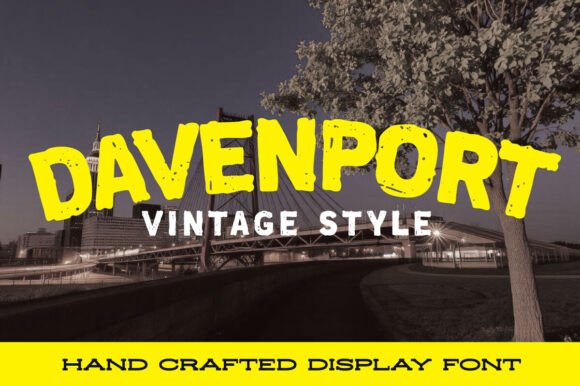
Davenport Font: A Bold, Vintage-Style Sans-Serif for Timeless Designs
The Davenport font is a striking, bold sans-serif typeface that embodies the essence of vintage charm. With its rugged, distressed texture and strong, blocky letterforms, Davenport exudes a commanding presence that instantly captures attention. This font is perfect for designers seeking to add a touch of nostalgia and authenticity to their branding, posters, and retro-inspired designs.
The Characteristics of Davenport Font
Davenport is a sans-serif font, meaning it doesn’t have the small lines or flourishes at the ends of the letters, giving it a clean and modern look. However, what sets Davenport apart is its bold, vintage-style aesthetic, which is achieved through its rugged, distressed texture. This texture gives the font a worn, weathered appearance, as if it’s been worn by time and use.
Key Features of Davenport Font:
- Bold and commanding presence: Davenport’s strong, blocky letterforms make it perfect for headlines, titles, and emphasis.
- Rugged, distressed texture: The font’s weathered details add authenticity and a touch of nostalgia.
- Timeless style: Davenport strikes a balance between toughness and timeless style, making it suitable for a wide range of design applications.
- Versatile: Perfect for branding, posters, and retro-inspired designs.
The Inspiration Behind Davenport Font
The inspiration behind Davenport font lies in the charm of old signage and well-worn printing techniques. The font’s designers aimed to create a typeface that would evoke the feeling of nostalgia and authenticity, reminiscent of vintage designs from the past. By incorporating a distressed texture and bold, blocky letterforms, Davenport font achieves this goal, transporting users to a bygone era.
Design Applications for Davenport Font
Davenport font is perfect for a variety of design applications, including:
- Branding: Use Davenport font to create bold, eye-catching logos that make a statement.
- Posters: Davenport font is ideal for creating striking posters that grab attention.
- Retro-inspired designs: The font’s vintage-style aesthetic makes it perfect for designs that require a nostalgic feel.
- Headlines and titles: Use Davenport font to add emphasis and create bold headlines and titles.
The Benefits of Using Davenport Font
Using Davenport font offers several benefits, including:
- Instant recognition: Davenport font’s bold, commanding presence ensures instant recognition.
- Emotional connection: The font’s nostalgic aesthetic creates an emotional connection with the audience.
- Versatility: Davenport font is suitable for a wide range of design applications.
- Timeless style: The font’s timeless style ensures it won’t go out of fashion anytime soon.
Tips for Using Davenport Font Effectively
To get the most out of Davenport font, follow these tips:
- Use it sparingly: Davenport font is bold and attention-grabbing, so use it sparingly to avoid overwhelming the audience.
- Pair it with complementary fonts: Pair Davenport font with complementary fonts to create visual interest.
- Experiment with colors: Experiment with different colors to find the perfect combination that suits your design.
- Consider the context: Consider the context in which you’ll be using Davenport font, and adjust the design accordingly.
In conclusion, Davenport font is a bold, vintage-style sans-serif font that offers a unique blend of toughness and timeless style. Its rugged, distressed texture and strong, blocky letterforms make it perfect for branding, posters, and retro-inspired designs. By incorporating Davenport font into your design, you can create striking, eye-catching visuals that grab attention and evoke a sense of nostalgia.
Final Thoughts
Davenport font is a versatile typeface that can add a touch of authenticity and charm to your designs. Whether you’re looking to create bold headlines, striking posters, or retro-inspired designs, Davenport font is an excellent choice. With its commanding presence and timeless style, Davenport font is sure to make a lasting impression.